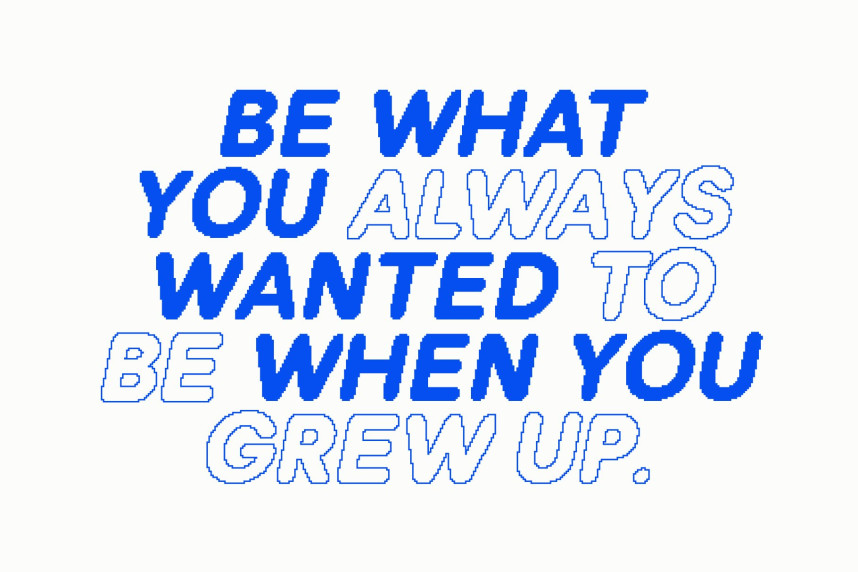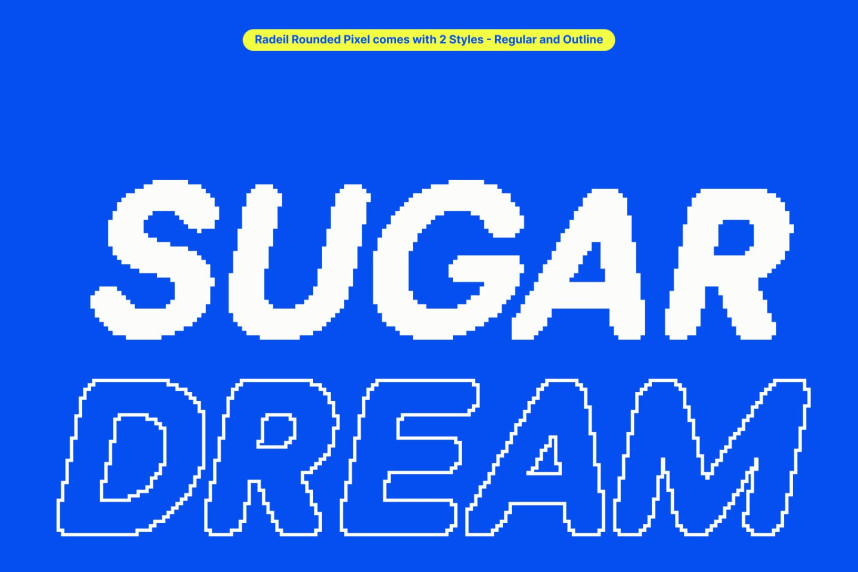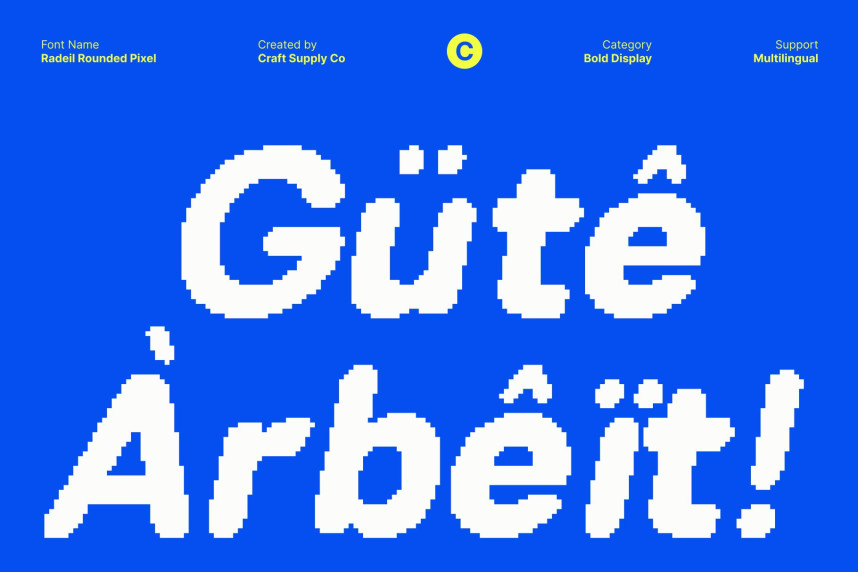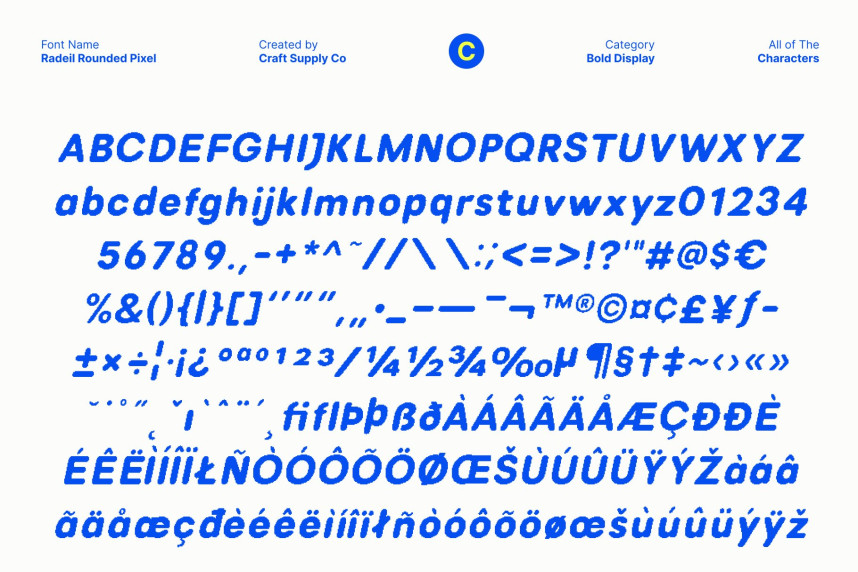
Radeil Rounded Pixel Font
Radeil Rounded Pixel Font – Friendly Rounded Display Font with Digital Pixel Charm Playful and Approachable Typeface. This is a cheerful and lighthearted rounded display font designed to convey friendliness and modernity. Its soft curves and approachable shapes make every character feel welcoming, giving your designs a lively and engaging personality. Ideal for youth-focused projects, posters, and playful branding, this font instantly communicates warmth and charm.